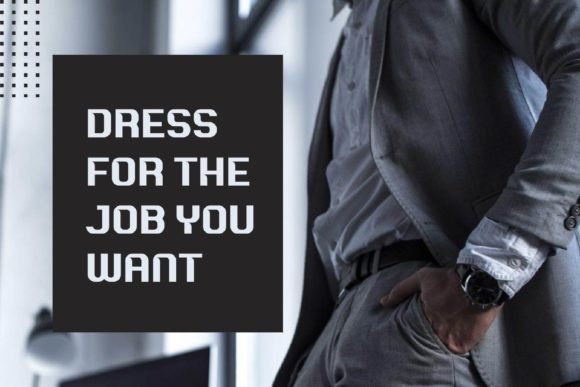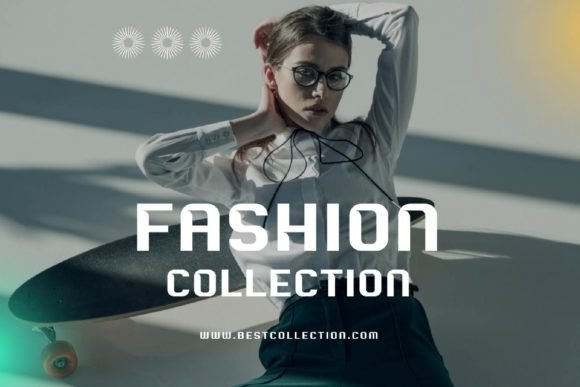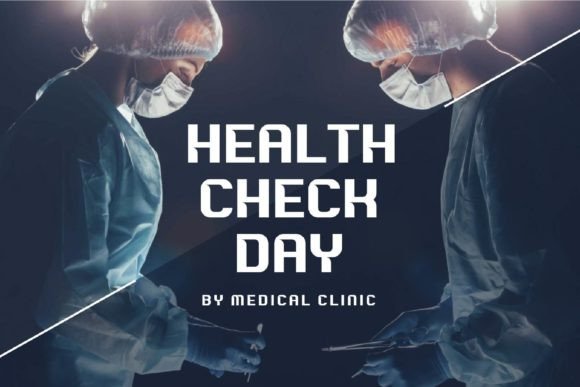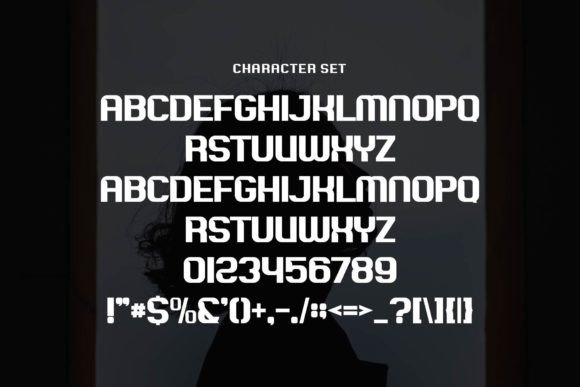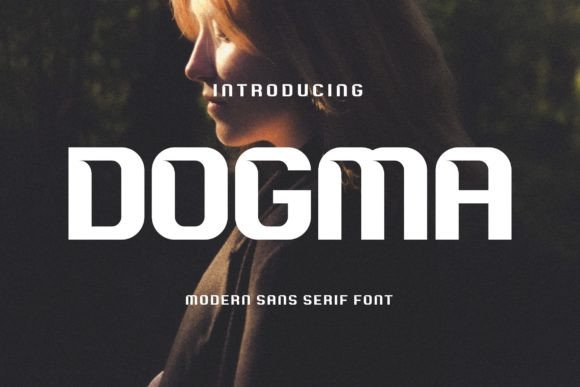
Introducing Dogma Font: The Ultimate Minimalist Typeface for Designers
In the world of design, typography plays a crucial role in conveying messages, creating visual identities, and evoking emotions. For designers and crafters, finding the perfect font can be a daunting task, especially when working on projects that require a unique and elegant touch. This is where Dogma Font comes in – a stunning sans serif typeface inspired by the famous minimalist logo. In this article, we’ll explore the features, benefits, and uses of Dogma Font, and why it’s a must-have for any designer or crafter.
What is Dogma Font?
Dogma Font is a modern sans serif typeface that embodies the essence of minimalism. Its clean lines, simple shapes, and elegant curves make it perfect for a wide range of design applications. The font is inspired by the famous minimalist logo, which has become synonymous with sophistication and style. With Dogma Font, designers can create stunning visual content that exudes professionalism and creativity.
Key Features of Dogma Font
So, what makes Dogma Font stand out from the rest? Here are some of its key features:
- PUA Encoded Characters: Dogma Font comes with PUA (Private Use Area) encoded characters, which means that all characters are fully accessible without the need for additional design software.
- Multilingual Support: The font includes multilingual support, making it perfect for designers who work with clients from diverse linguistic backgrounds.
- Elegant Crafting: The font’s elegant curves and lines make it perfect for crafting stunning visual content, from logos and branding to invitations and brochures.
Uses of Dogma Font
Dogma Font is an incredibly versatile typeface that can be used for a wide range of design applications, including:
- Template Design: Create stunning templates for brochures, flyers, and other marketing materials.
- Branding and Logo Design: Use Dogma Font to create elegant logos and branding materials that exude professionalism.
- Video and Advertising: Add a touch of sophistication to your video and advertising content with Dogma Font.
- Invitation and Layout Design: Create beautiful invitations, business cards, and other stationery items with Dogma Font.
- Beauty and Craft Design: Use Dogma Font to create stunning visual content for beauty and craft-related projects.
Benefits of Using Dogma Font
So, why should designers and crafters choose Dogma Font over other typefaces? Here are some benefits:
- Unique and Elegant: Dogma Font offers a unique and elegant touch that sets it apart from other typefaces.
- Versatile: The font is incredibly versatile and can be used for a wide range of design applications.
- Easy to Use: With PUA encoded characters and multilingual support, Dogma Font is easy to use and accessible.
- Time-Saving: The font’s compatibility with popular design software saves designers time and effort.